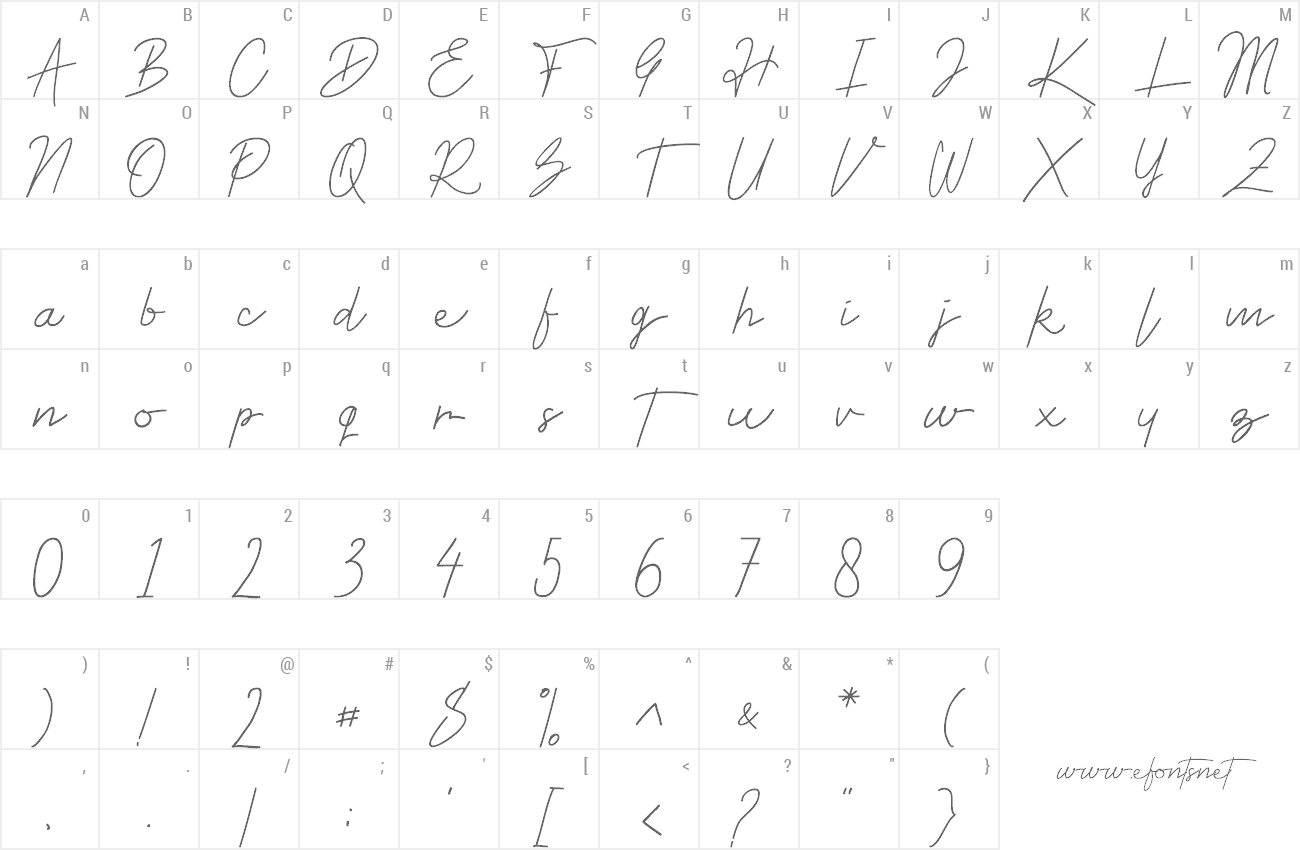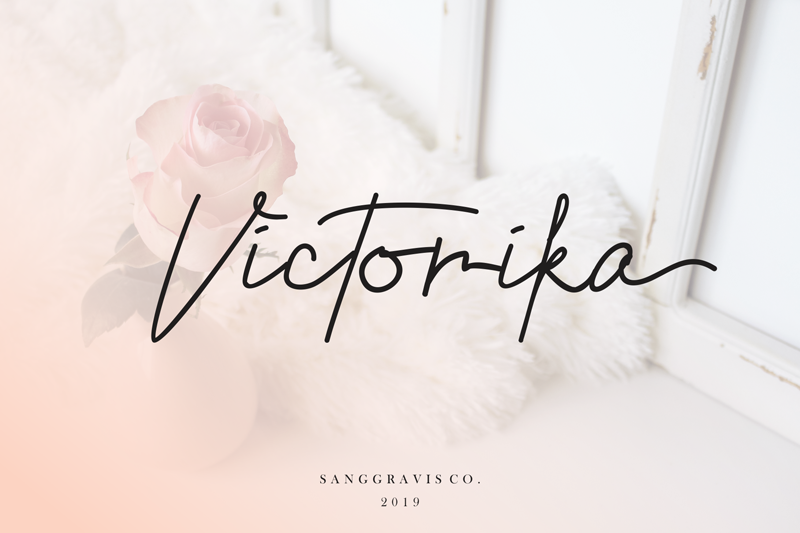
Preview and download Victorika Font. Created by Sanggrama Visual Studio in Script Handwritten styles with Free for personal use license.
Victorika is a special font created with a touch of detail on each letter. Visually looks elegant, aesthetic, beautiful and modern. You can use to create designs for personal branding, perfect for photography, watermark, social media posts, advertisements, logos, poster titles, magazines, name tags, book titles, business cards, beautiful fashion designs, advertisements, product designs, wedding invitations, signatures, handwritten quotes. NOTE : This demo Font is for PERSONAL USE ONLY! Link to puchase full version and commercial licensi : https://creativemarket.com/Sanggrama/3339561-Victorika Please visit our store for more great fonts : https://creativemarket.com/Sanggrama and follow my instagram @sanggravis thank you |